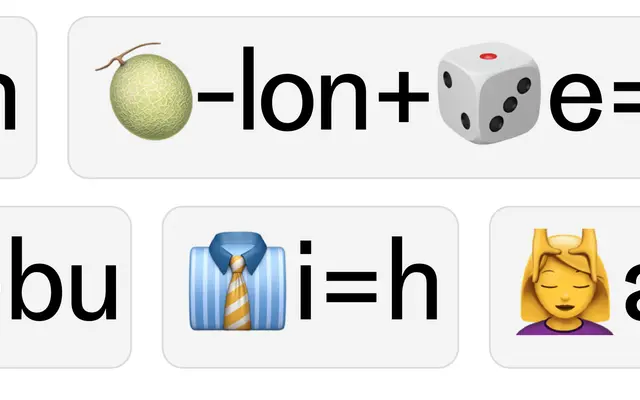
A five-weight grotesque revived from a Bauer & Co. specimen of the early 1880s, capturing the rawness of pre-Akzidenz sans-serif design.
Originally developed for Bahrain's contribution to the 2013 Venice Architecture Biennial under the name RH Inter, the family has since grown from a single cut to five weights. Its letterforms sit at an awkward, transitional moment in type history, before grotesques had settled into the balance that would define Akzidenz Grotesk, giving them a blunter, more literal strangeness. American precursors from the 1860s, including White & Co.'s Grotesk Nr.1, were later found to share close similarities with the source material.
Rooted in a late-19th century South German sans-serif specimen from Bauer & Co., predating Akzidenz Grotesk, placing it firmly in the early grotesque tradition with archaic, unconventional letterforms.